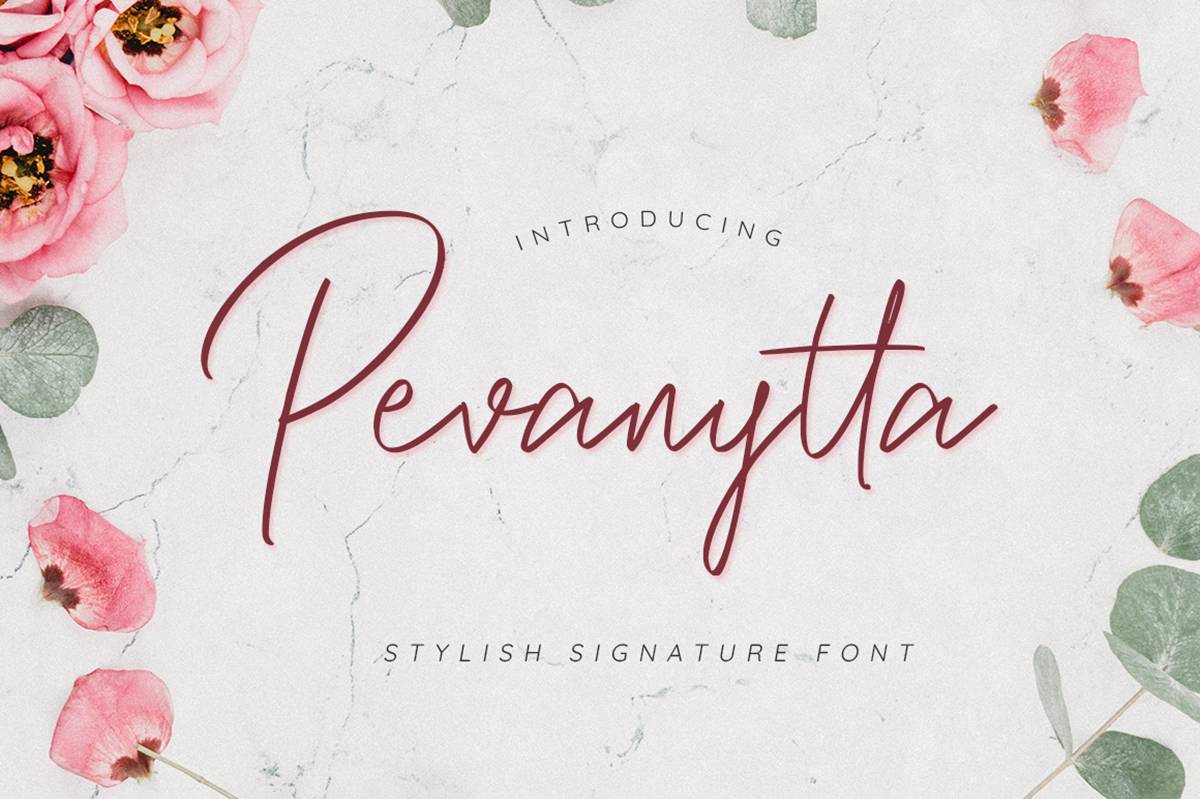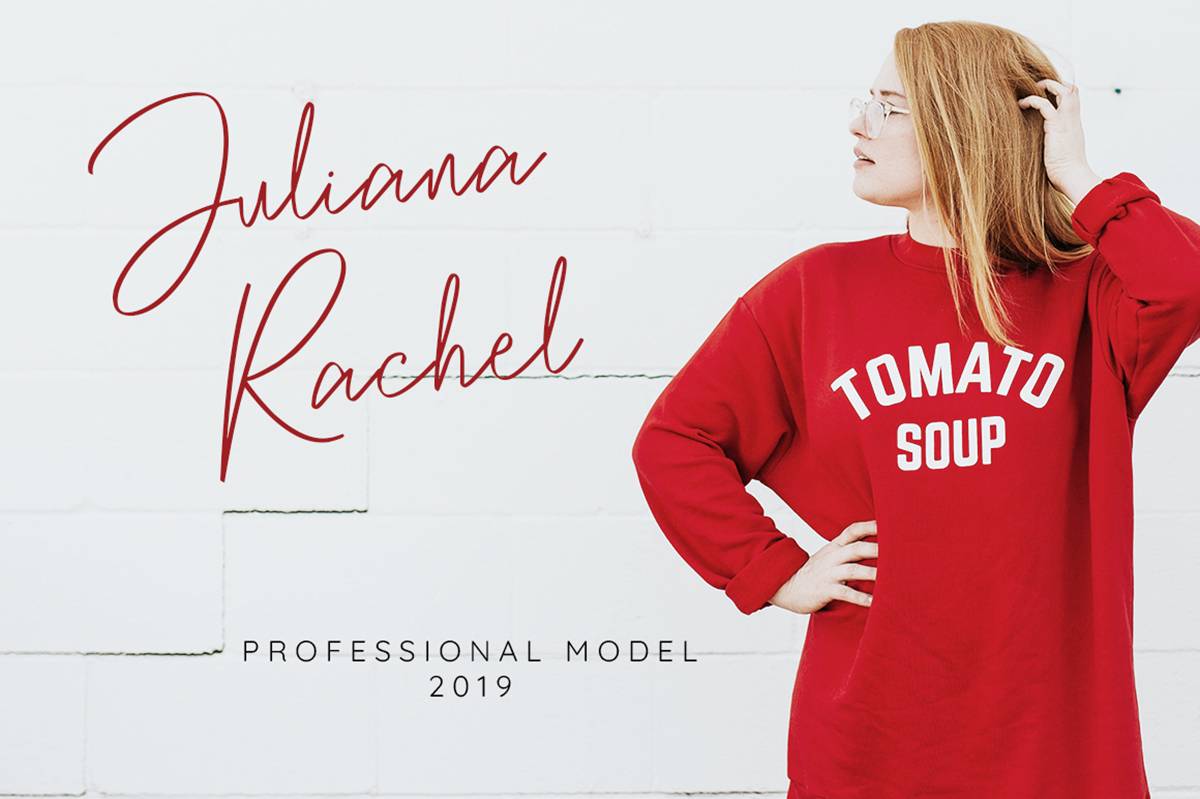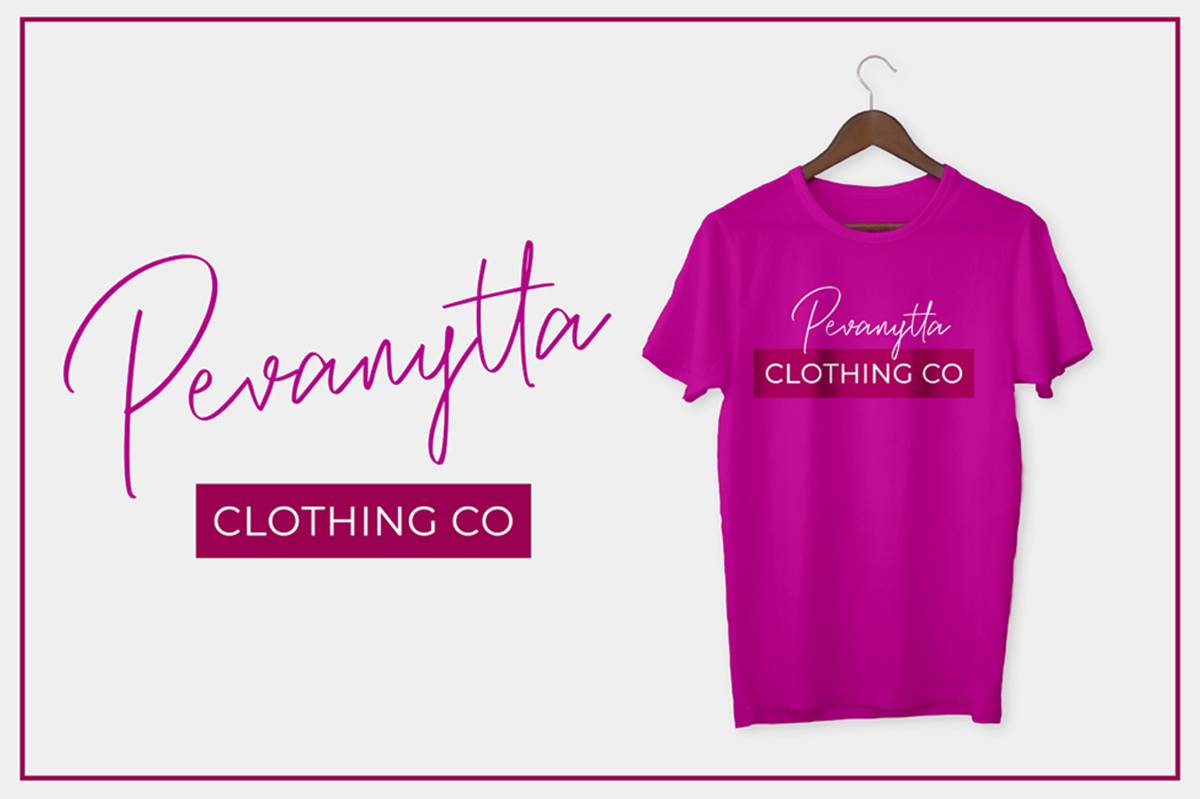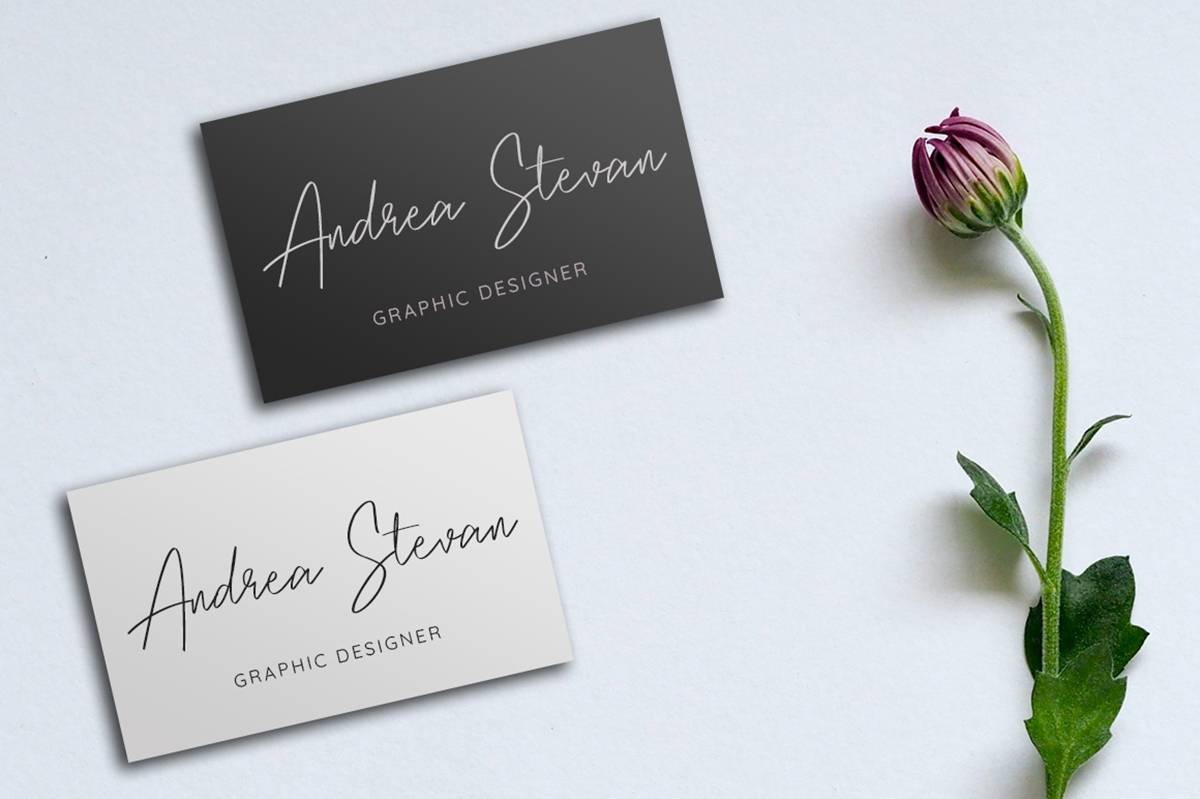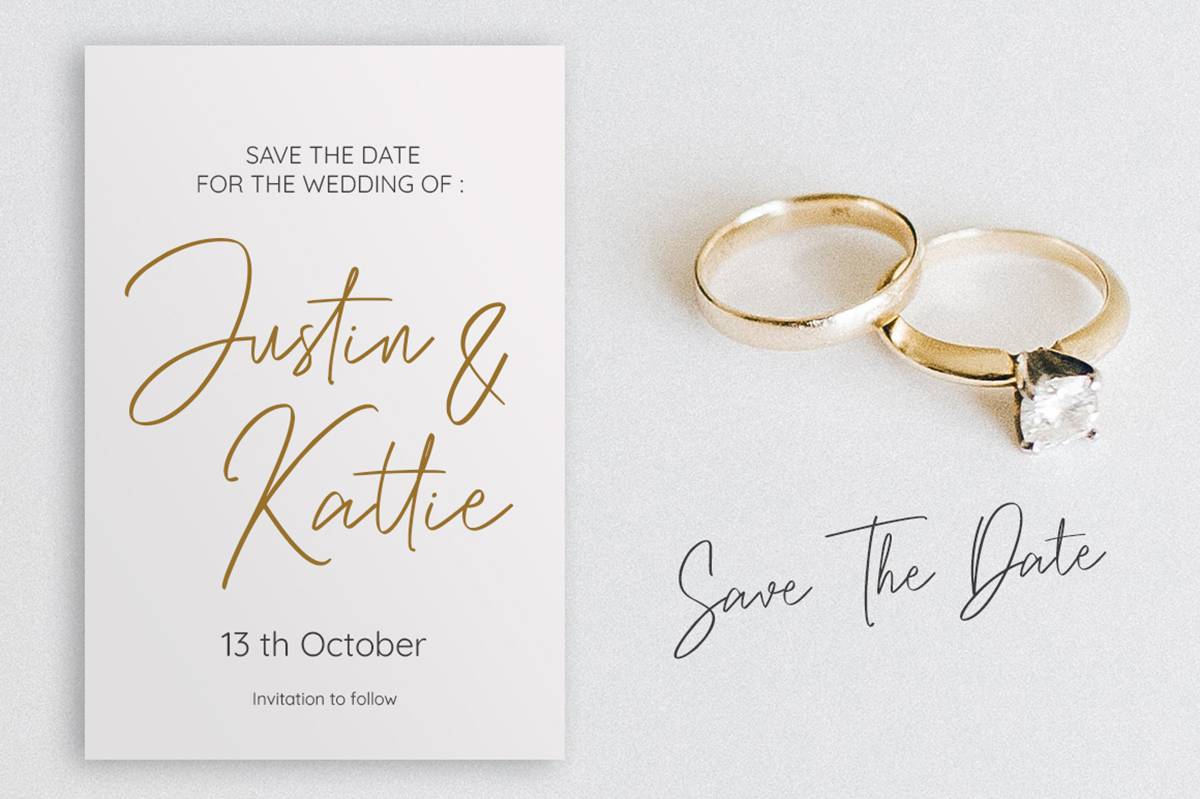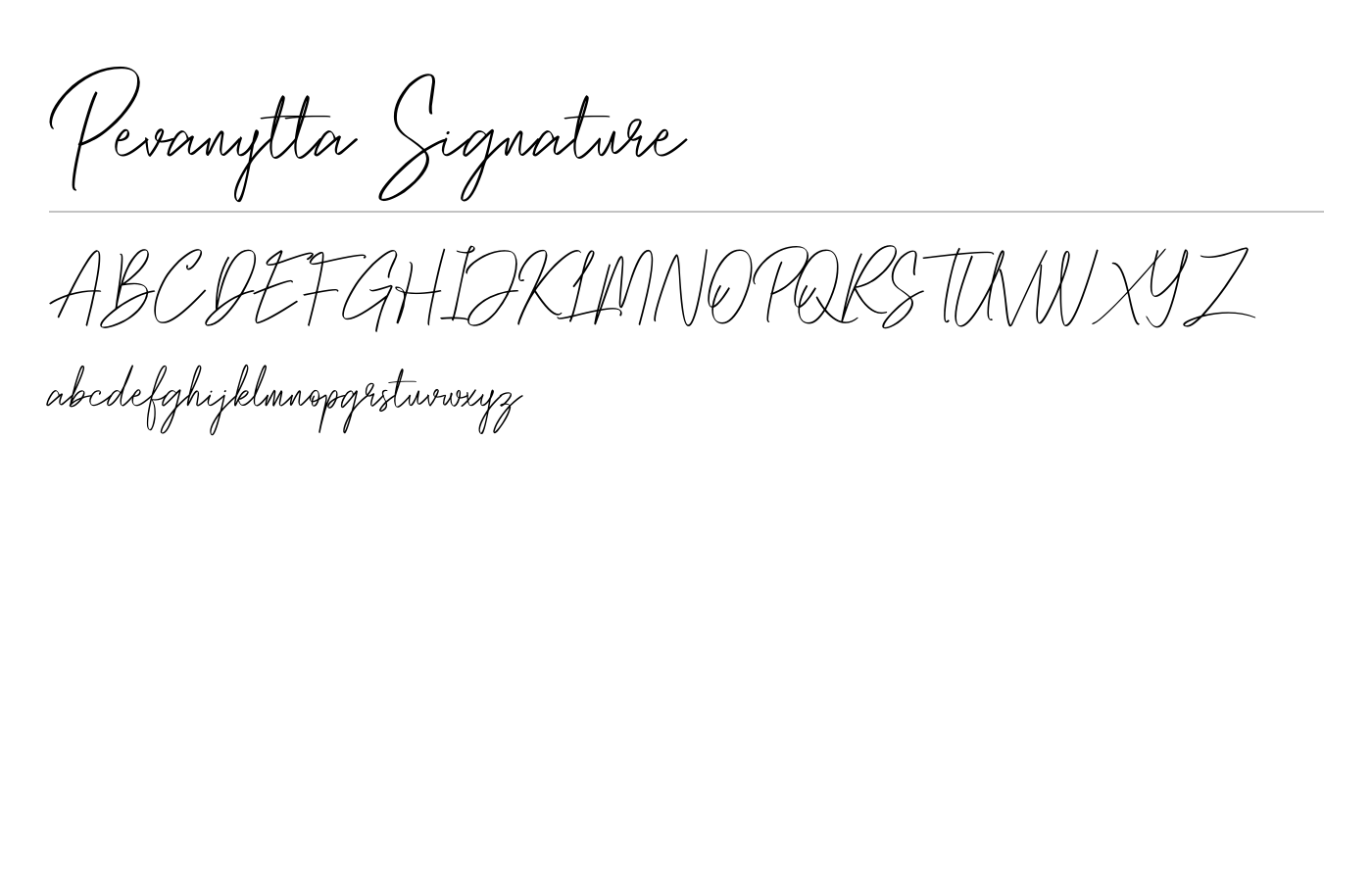
Pevanitta Signature is an elegant, thin script font that mimics natural, flowing handwriting with a delicate touch. Its tall, slender letterforms and slight irregularity give it a personal, stylish feel, making it ideal for branding, invitations, and design projects that require a sophisticated yet approachable handwritten look. This font works especially well for logos and headlines where a refined, signature-style effect is desired.
Pevanitta Font
About Pevanitta Font
| Font family | Pevanitta Font |